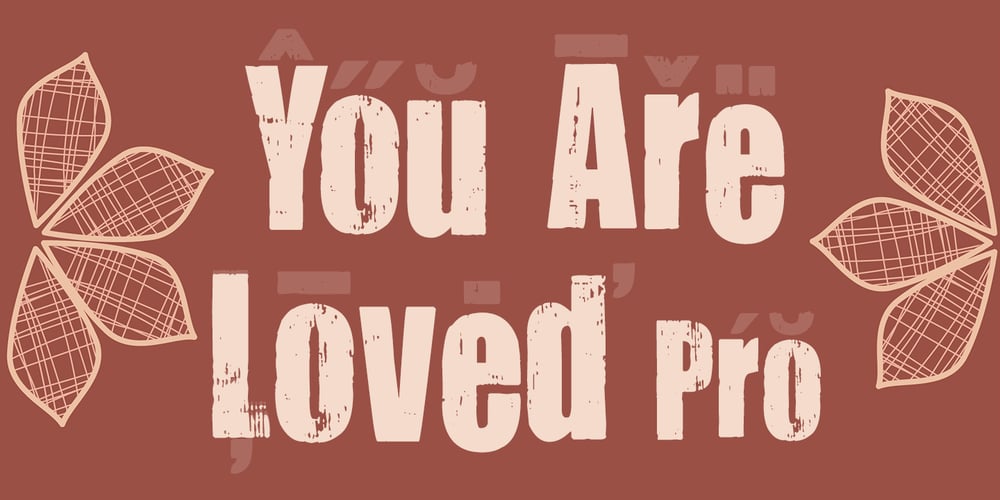
You Are Loved Pro Font Family was designed by Roger S. Nelsson, Kimberly Geswein and published by CheapProFonts. You Are Loved Pro contains 1 styles and family package options. Rough. Torn. Shredded. Worn. Weary. Gritty. Uneven. Irregular. Ripped. Scraped. Cracked. Eroded. Deteriorated. And now ready to present your powerful message in 65 languages! ALL fonts from CheapProFonts have very extensive language support: They contain some unusual diacritic letters (some of which are contained in the Latin Extended-B Unicode block) supporting: Cornish, Filipino (Tagalog), Guarani, Luxembourgian, Malagasy, Romanian, Ulithian and Welsh. They also contain all glyphs in the Latin Extended-A Unicode block (which among others cover the Central European and Baltic areas) supporting: Afrikaans, Belarusian (Lacinka), Bosnian, Catalan, Chichewa, Croatian, Czech, Dutch, Esperanto, Greenlandic, Hungarian, Kashubian, Kurdish (Kurmanji), Latvian, Lithuanian, Maltese, Maori, Polish, Saami (Inari), Saami (North), Serbian (latin), Slovak(ian), Slovene, Sorbian (Lower), Sorbian (Upper), Turkish and Turkmen. And they of course contain all the usual “western” glyphs supporting: Albanian, Basque, Breton, Chamorro, Danish, Estonian, Faroese, Finnish, French, Frisian, Galican, German, Icelandic, Indonesian, Irish (Gaelic), Italian, Northern Sotho, Norwegian, Occitan, Portuguese, Rhaeto-Romance, Sami (Lule), Sami (South), Scots (Gaelic), Spanish, Swedish, Tswana, Walloon and Yapese.